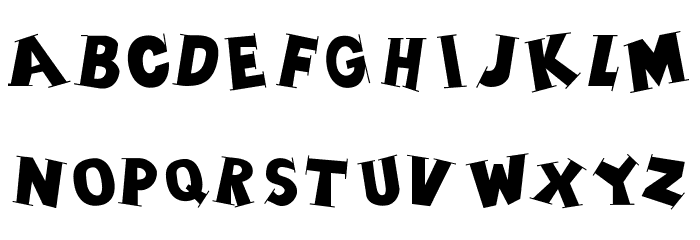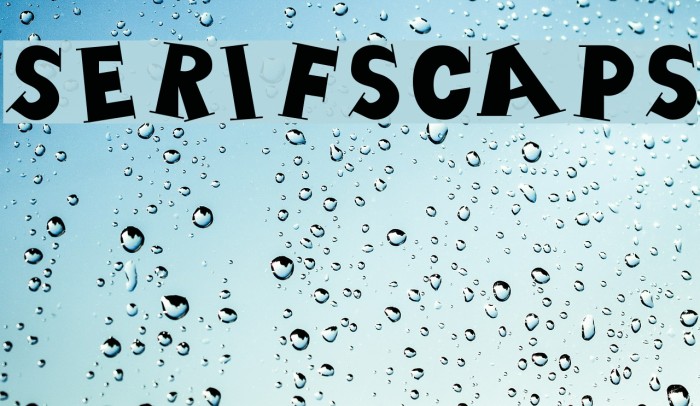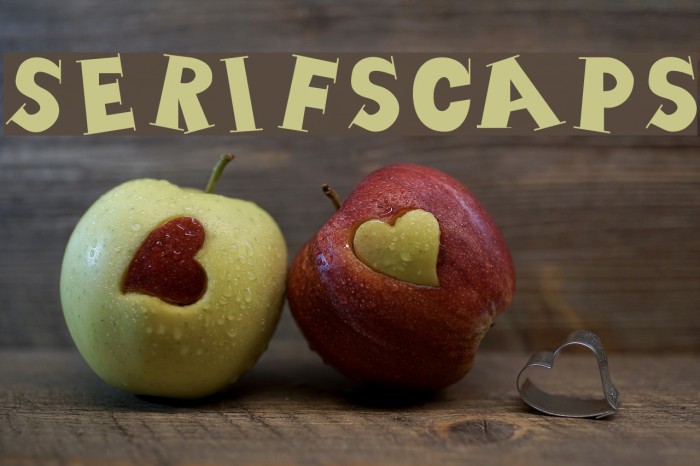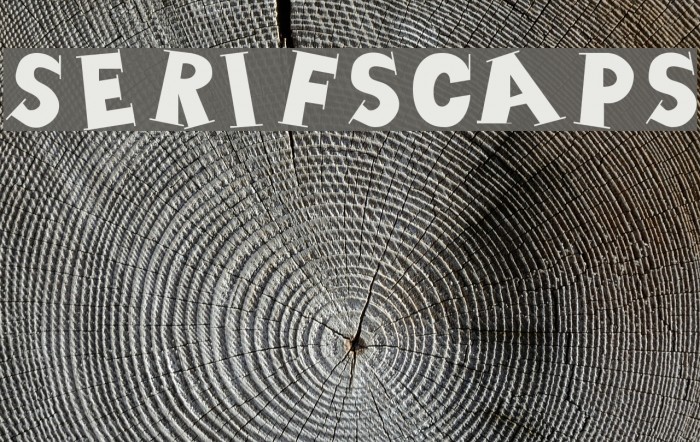
SerifsCaps Font
This font features a bold and playful design with exaggerated serifs and a slightly irregular form, giving it a whimsical and dynamic appearance. The uppercase letters are distinct with varying angles and curves, creating a sense of movement and energy. The overall look is both eye-catching and unique, making it suitable for creative and informal applications. The font's boldness ensures high visibility, while the quirky design elements add character and charm.
A bold, playful serif font with exaggerated and irregular forms.
- Proposed Projects: Ideal for children's book covers, playful branding, posters, and creative event invitations.